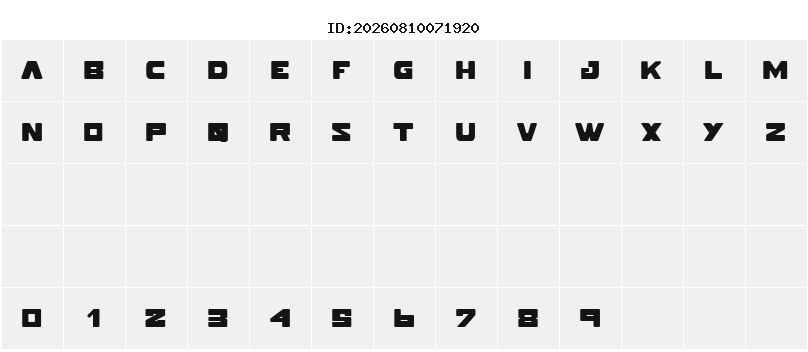
• Font Name: POKERFACE
• Designer: Maelle.K
About POKERFACE.ttf
POKERFACE.ttf is a modern, elegant sans-serif font designed for ultimate readability and visual harmony. Perfect for branding, headlines, web design, and print materials.